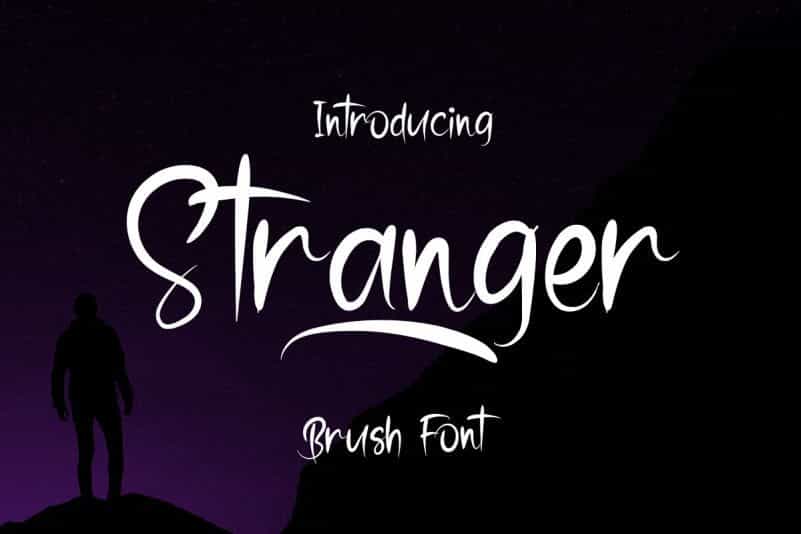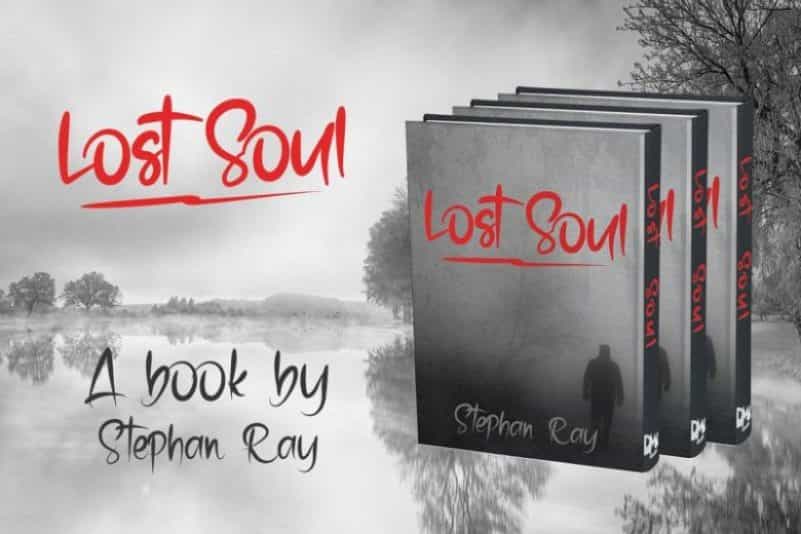
Stranger Brush is a unique and contemporary font of brushes that is designed and crafted by Dm Studio. This is a hand-brush script font designed from calligraphy and writing style in the invitation and bridal niche. Stranger Brush is a messy handwritten brush font style and the messy strokes of the font makes the font look unique and different in every word.